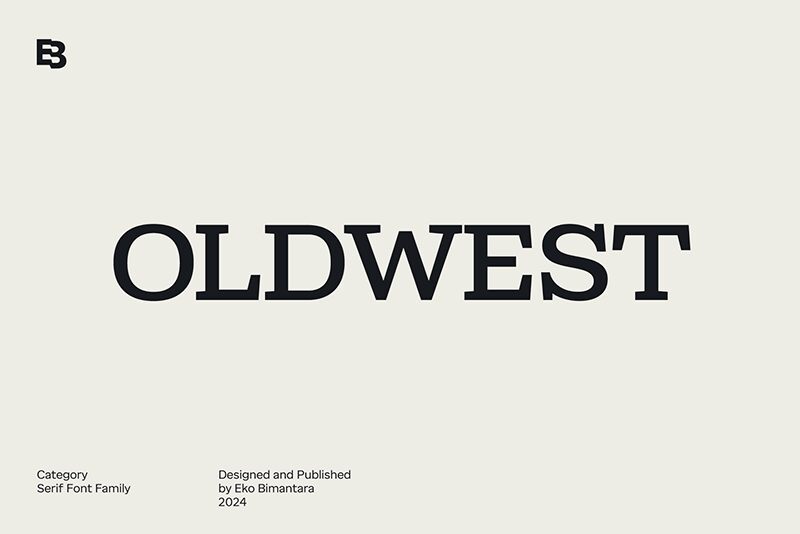
OLDWEST
Oldwest font by Eko Bimantara is a free expanded font with strong historical references and authoritative effects. It’s a Western-themed serif font that carries a dramatic flair in addition to clear visible strokes of the letters. Inspired by old, heroic tales and characters, Oldwest understands how to bring your scenes to life.
Use it for TV series posters, movie covers, wild adventure books for young adults, comics’ covers and panels. Any project that’s part of this specific type of storytelling will be 100% complete with this tool by its side.